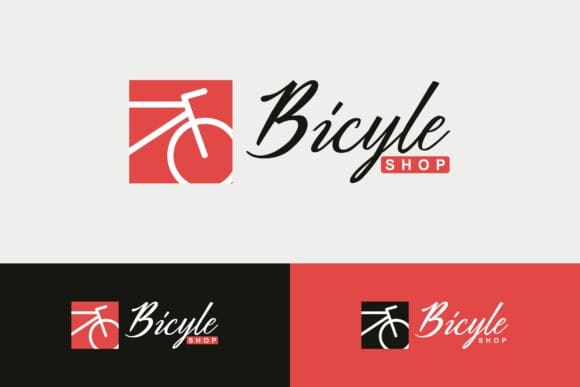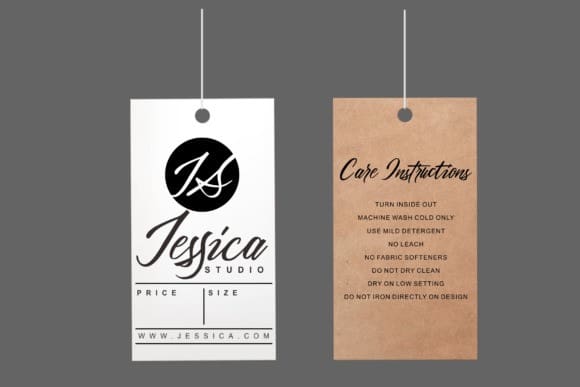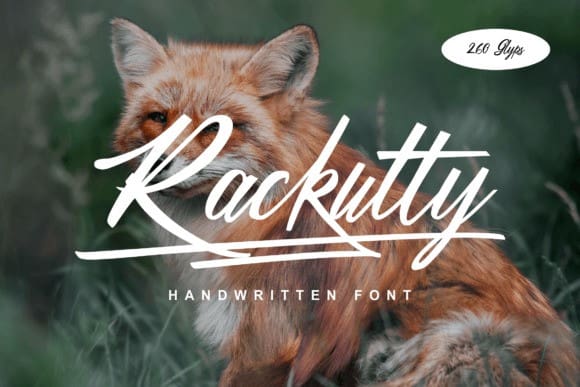
Rackutty Script Font
Rackutty Script Font, is a handwritten font optimized for use in various design projects that you create, perfect for use in product design, invitations, greetings, logo designs and more.
Fonts use the OpenType Standard Ligature feature to automatically distinguish lowercase letters and consecutive numbers (use separate glyphs) they also automatically distinguish characters as they are separated by other letters.
Smart ligatures Other subtle but hopefully useful features include some ligatures which also make character connection smoother, in addition there are some unique swashes and can be used directly by just typing (a + underscore + underscore) but this is limited to only 14 swashes.